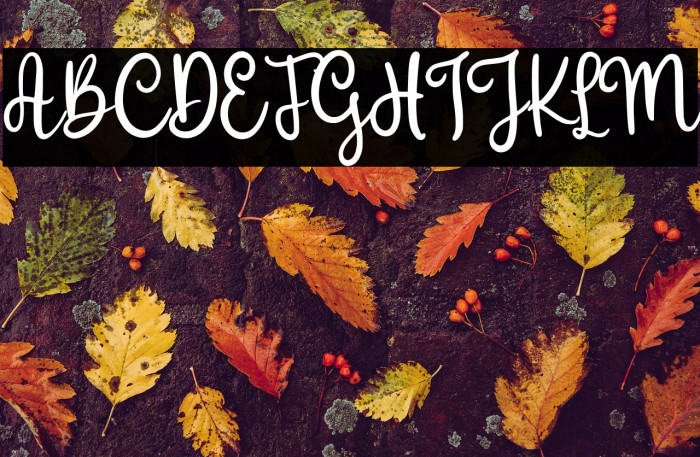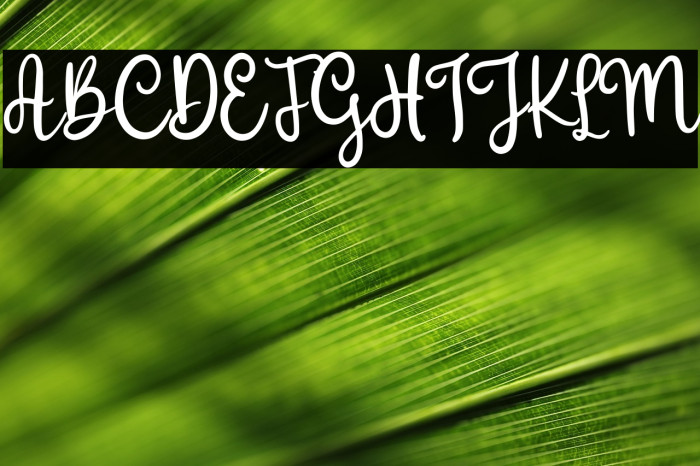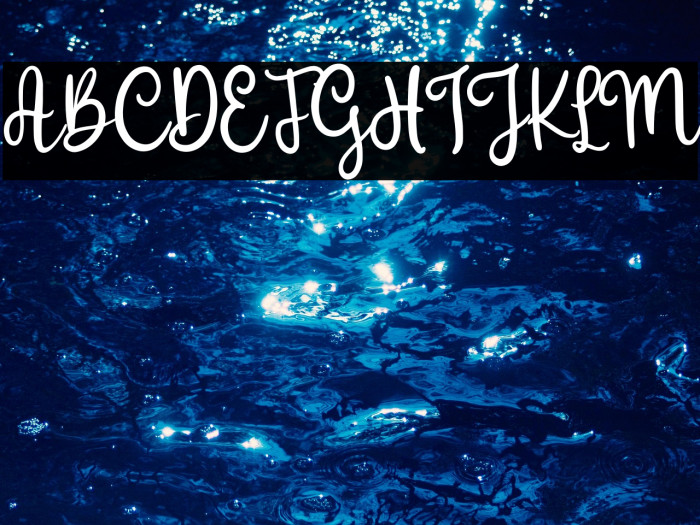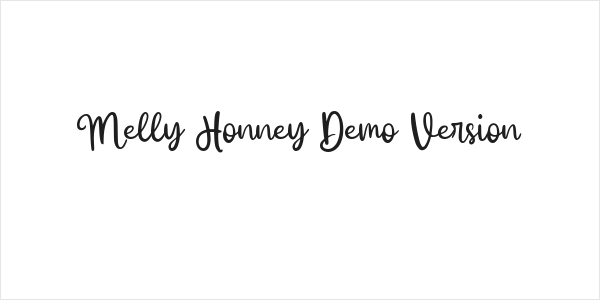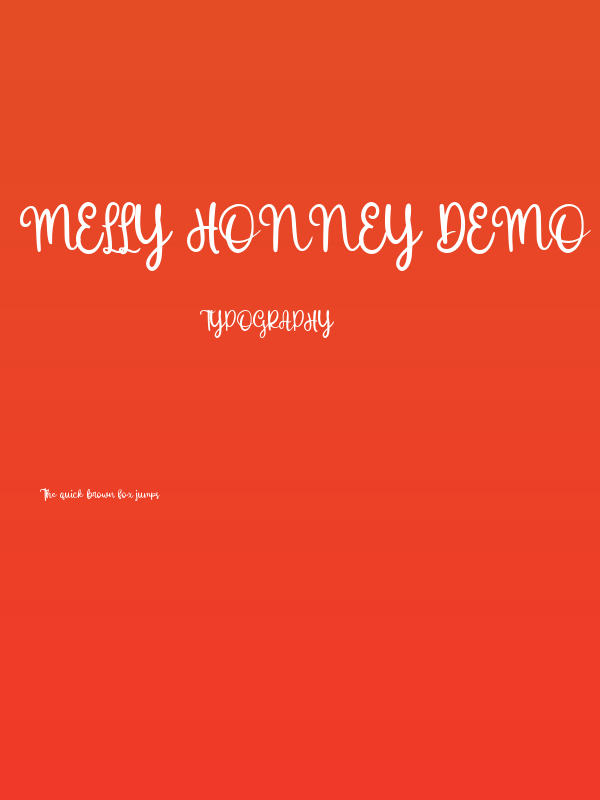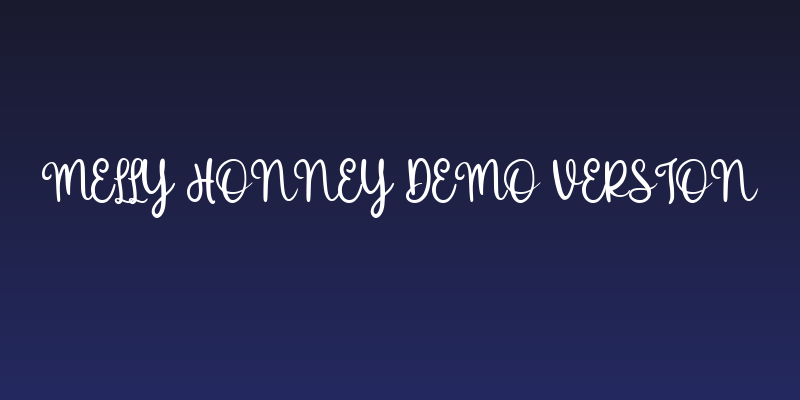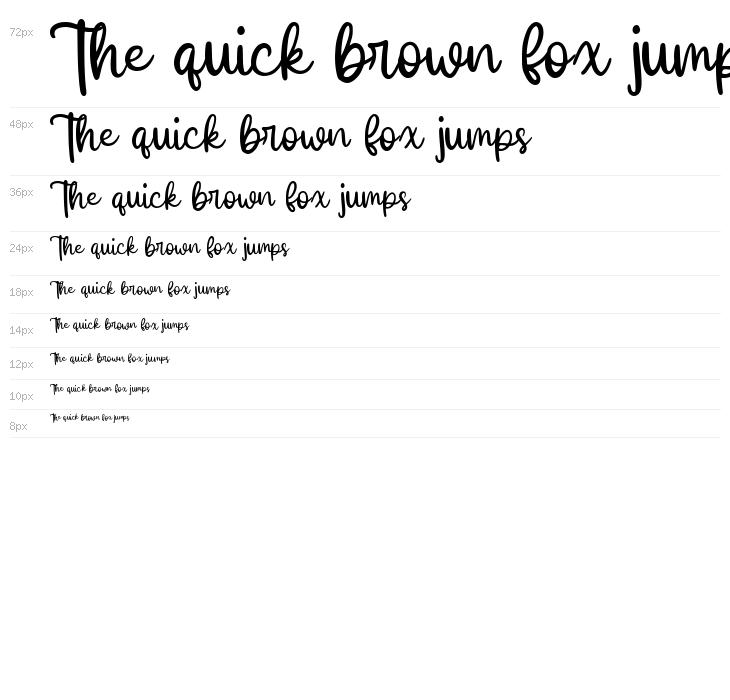
Melly Honney Demo Version Font
Melly Honney Demo Version Description
This font exudes a playful and whimsical charm, characterized by its flowing, cursive style that mimics natural handwriting. The uppercase letters are bold and slightly exaggerated, with elegant loops and curves that add a touch of sophistication. The lowercase letters maintain a consistent flow, enhancing readability while preserving the font's artistic flair. Numbers and special characters are crafted with the same attention to detail, ensuring a cohesive look across all elements. The overall design is both modern and timeless, making it suitable for a variety of creative projects.
| Use Case | Logos, Invitations, Social media posts |
| Proposed Projects | Ideal for wedding invitations, greeting cards, branding, and social media graphics. |